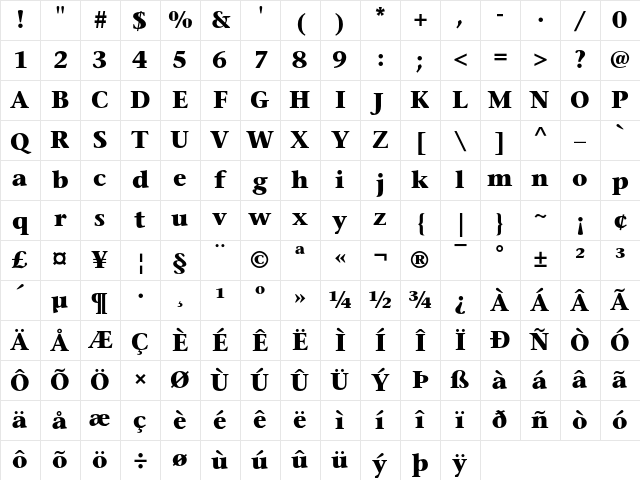
ITC Stone Serif Bold
ITC Stone Serif Family
ITC Stone Serif Bold
Design Context for ITC Stone Serif
ITC Stone Serif carries the refined structure of traditional serif typography, with bracketed terminals and considered proportions that communicate credibility and craft. Its bold stroke weight gives it real presence on the page.